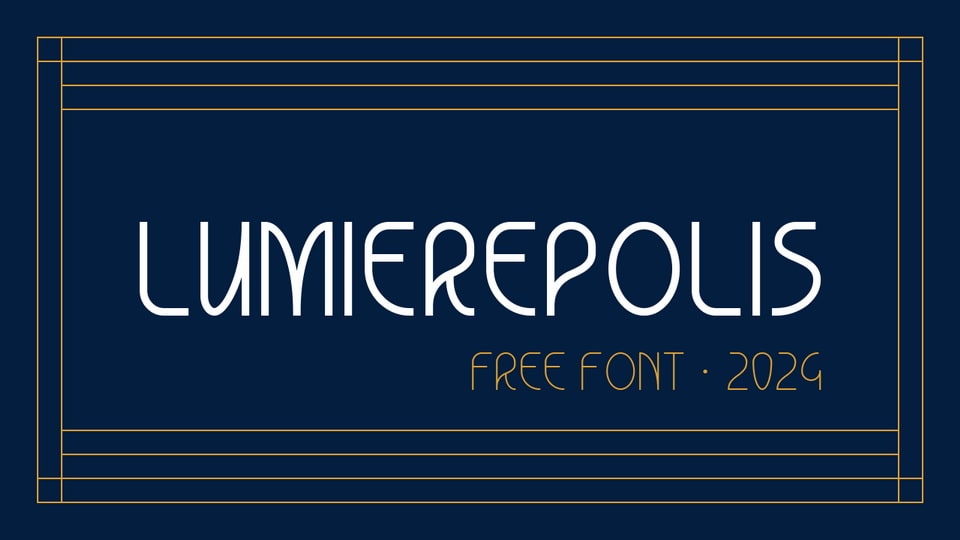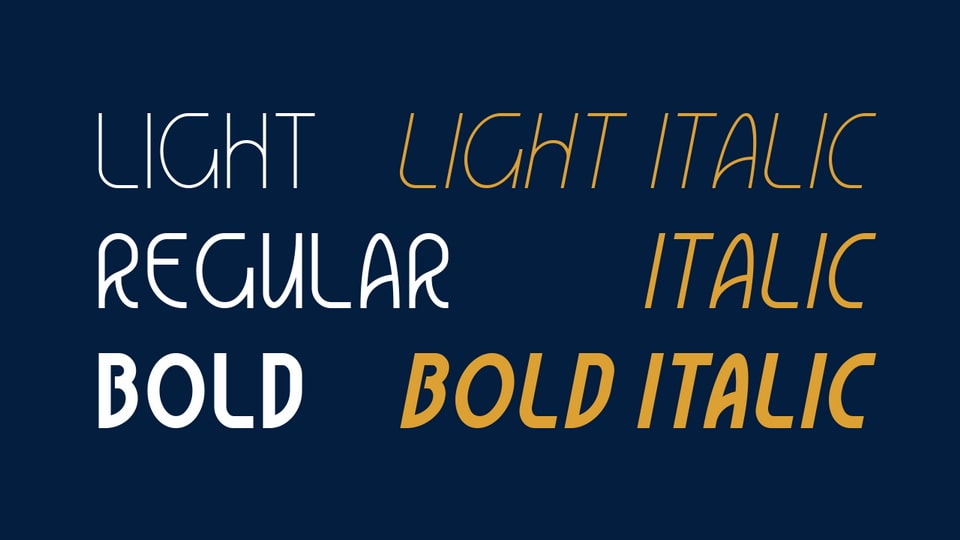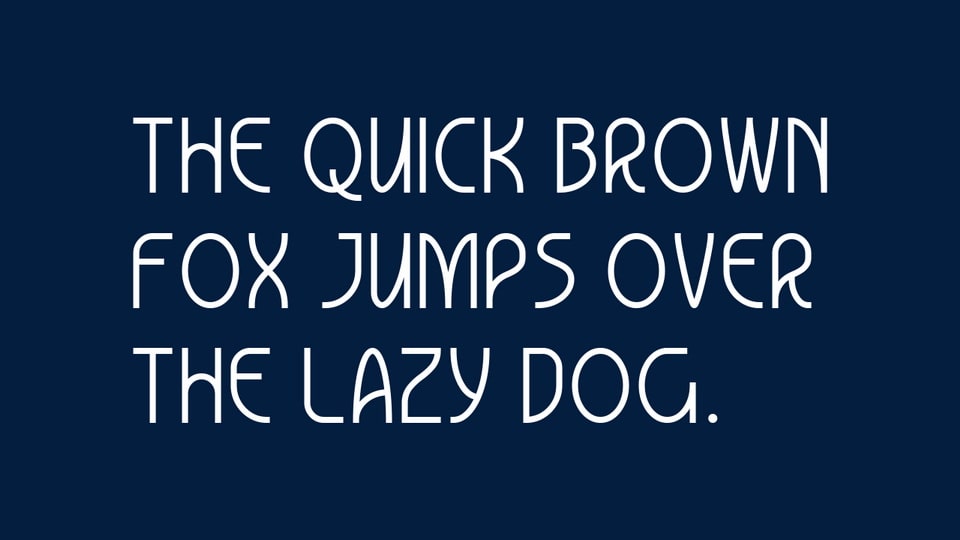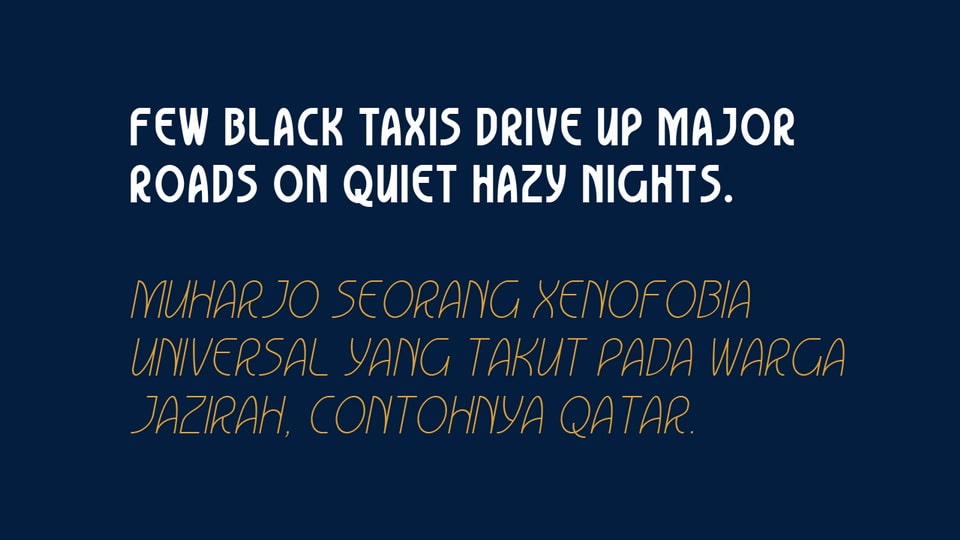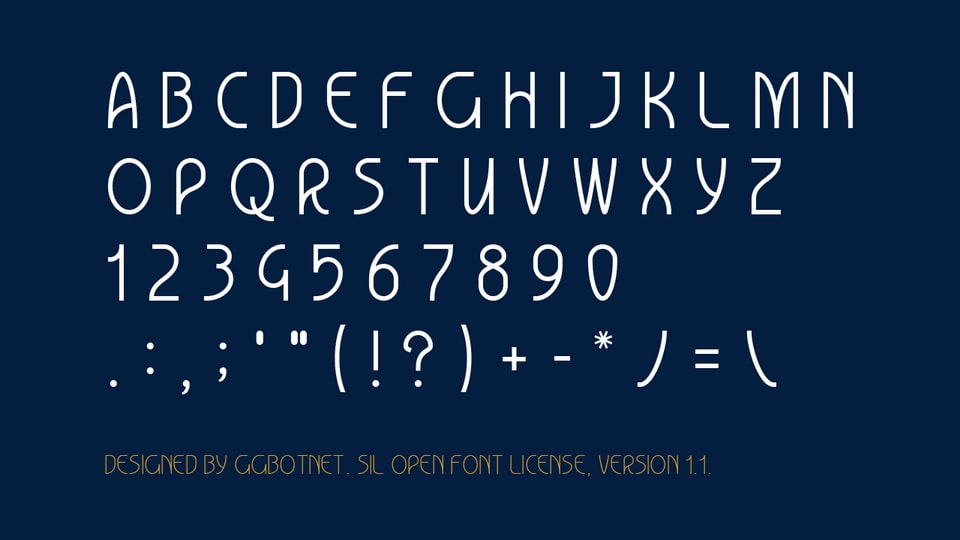
Lumierepolis
Designed by GGBotNet, Lumierepolis is a decorative display typeface with tall, narrow capitals and a thin monoline structure. The letters have rounded terminals, soft bends, and slightly irregular proportions, giving the alphabet a hand-drawn feel within a clean upright rhythm. Its low contrast and generous spacing keep short words readable, while the unusual shapes in forms such as A, G, Q, W, and Y add a playful retro tone. The style fits compact headlines, title cards, posters, labels, game UI, and other short text settings where decorative character matters more than paragraph readability.